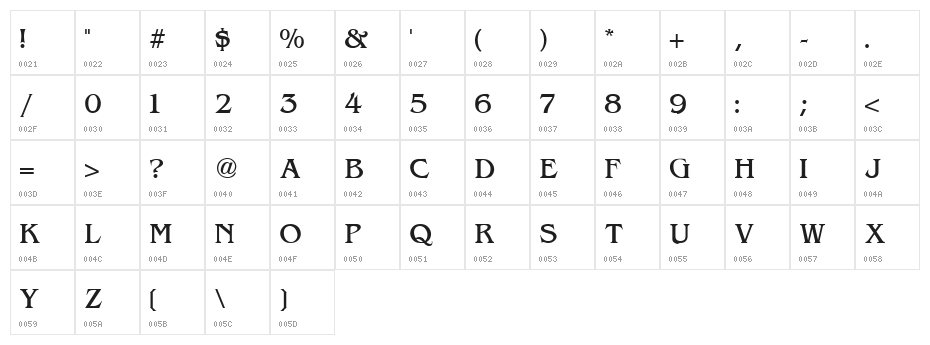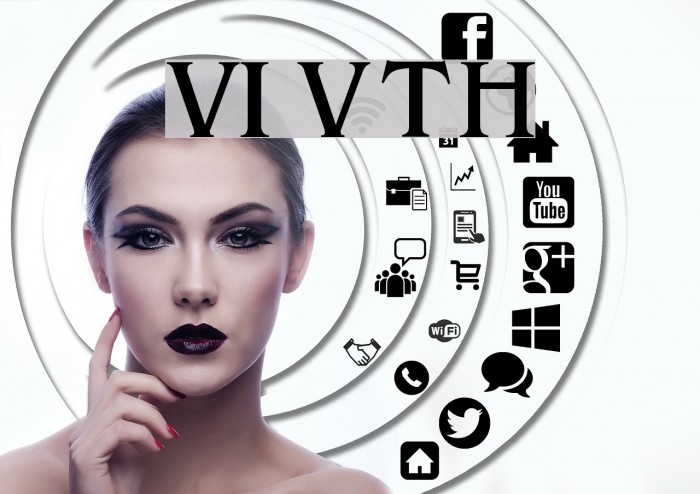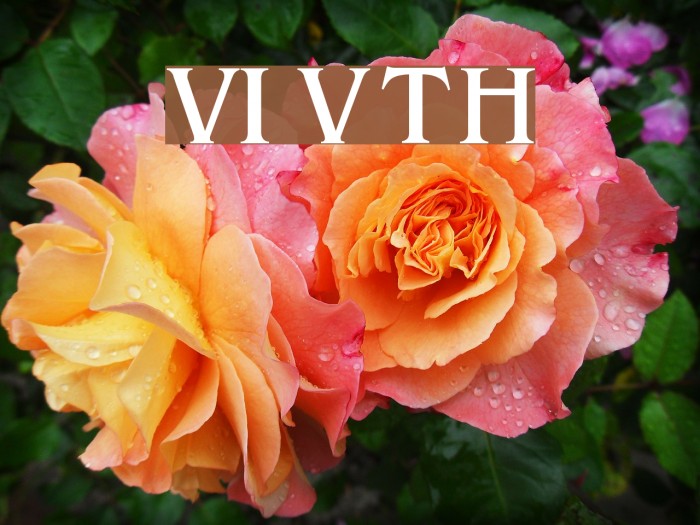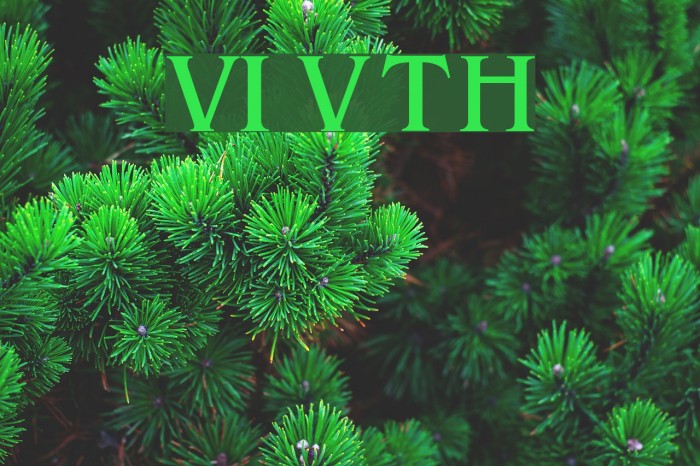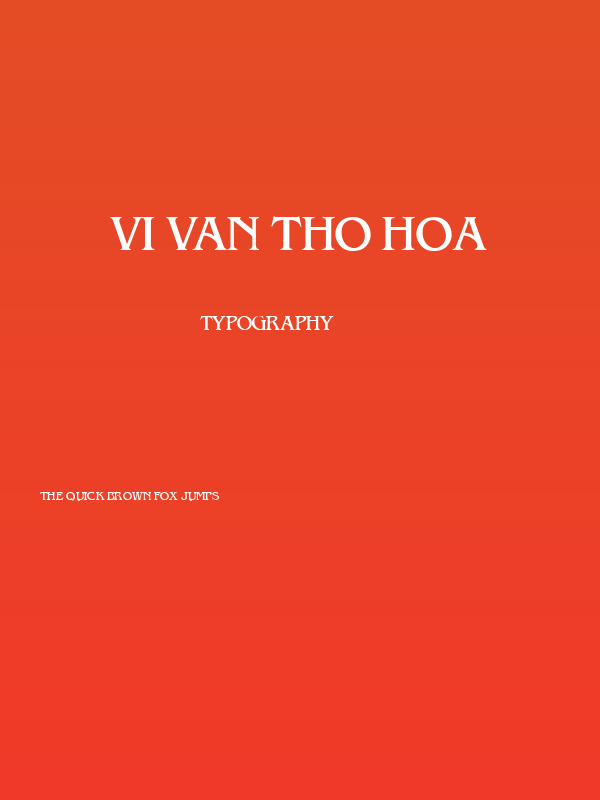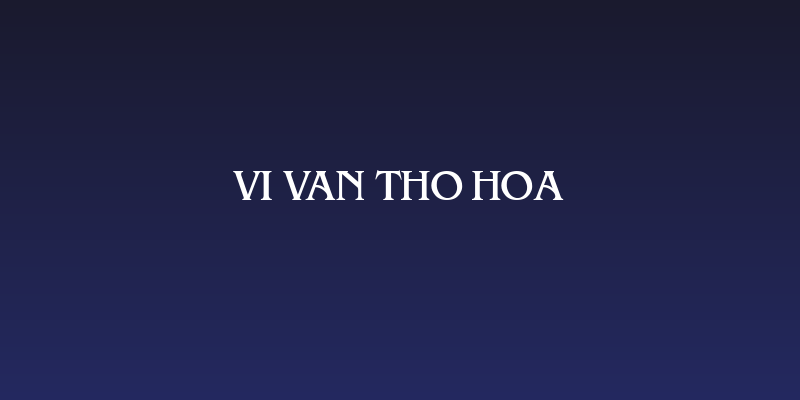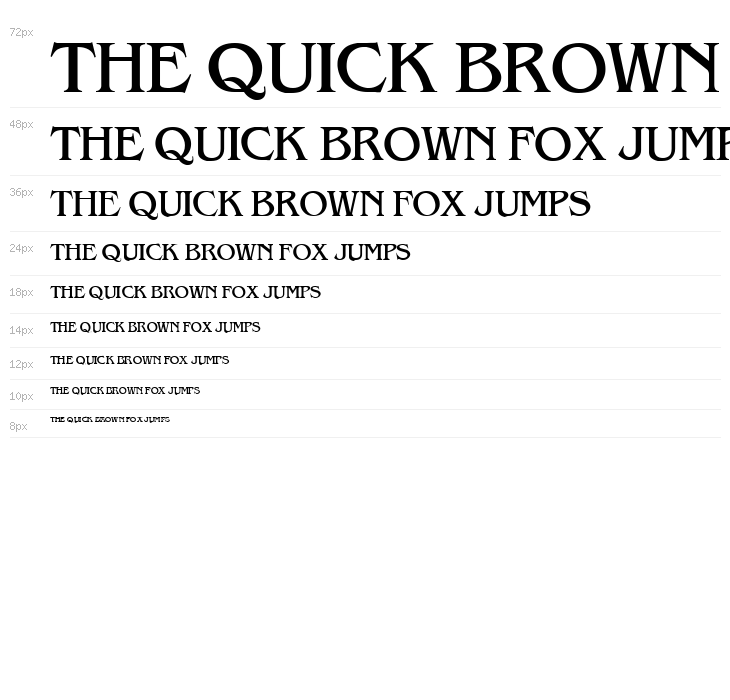
VI Van Tho Hoa Font
VI Van Tho Hoa Description
This font features a classic serif style with a strong, authoritative presence. The characters have a traditional look, with sharp serifs and a moderate contrast between thick and thin strokes. The uppercase letters are bold and commanding, while the lowercase letters maintain a consistent style that complements the uppercase. The numbers are clear and legible, designed to stand out with their bold structure. Special characters are well-integrated, maintaining the overall aesthetic of the font. This font is suitable for projects that require a formal and elegant touch, such as invitations, certificates, and editorial design.